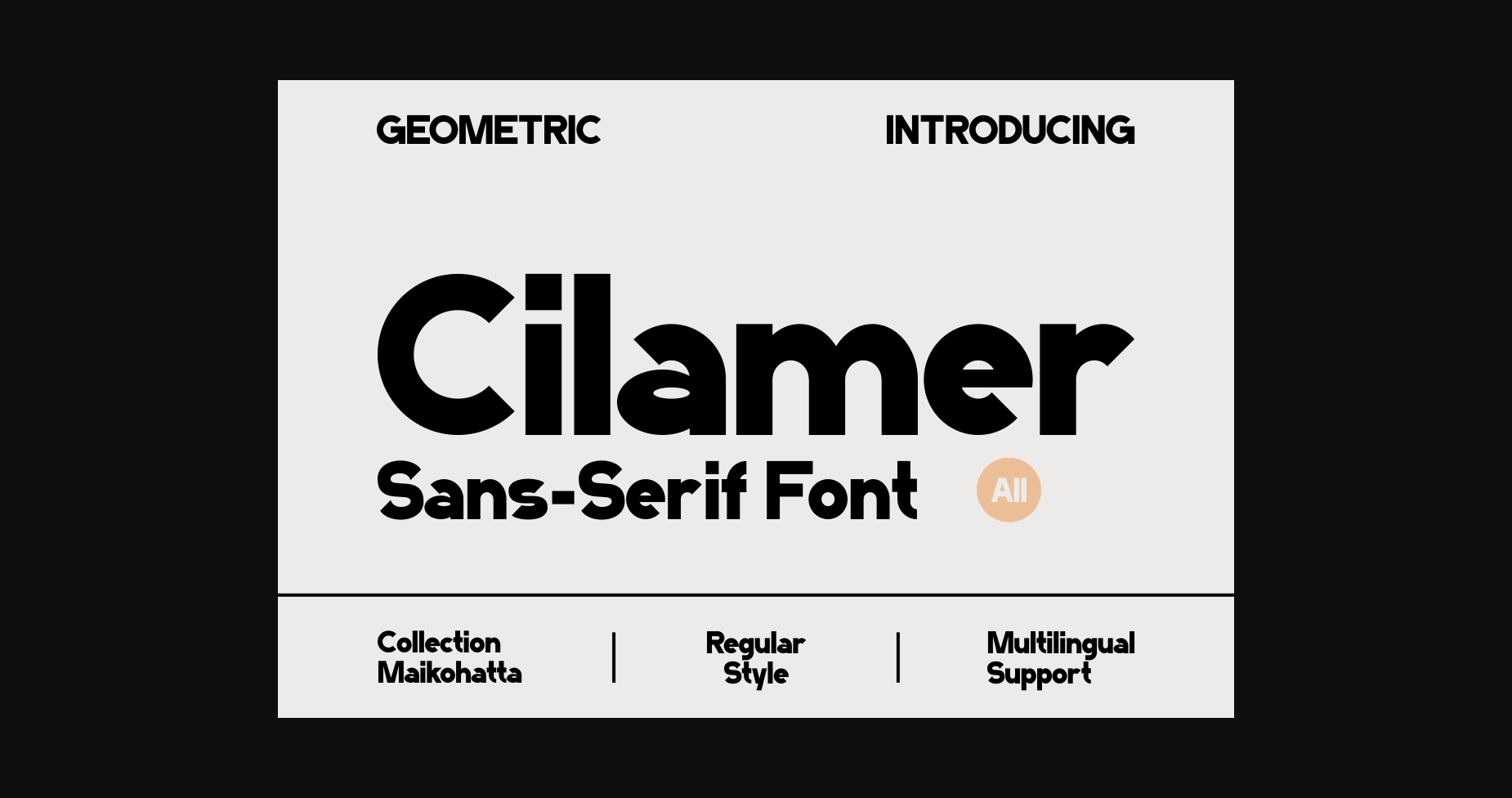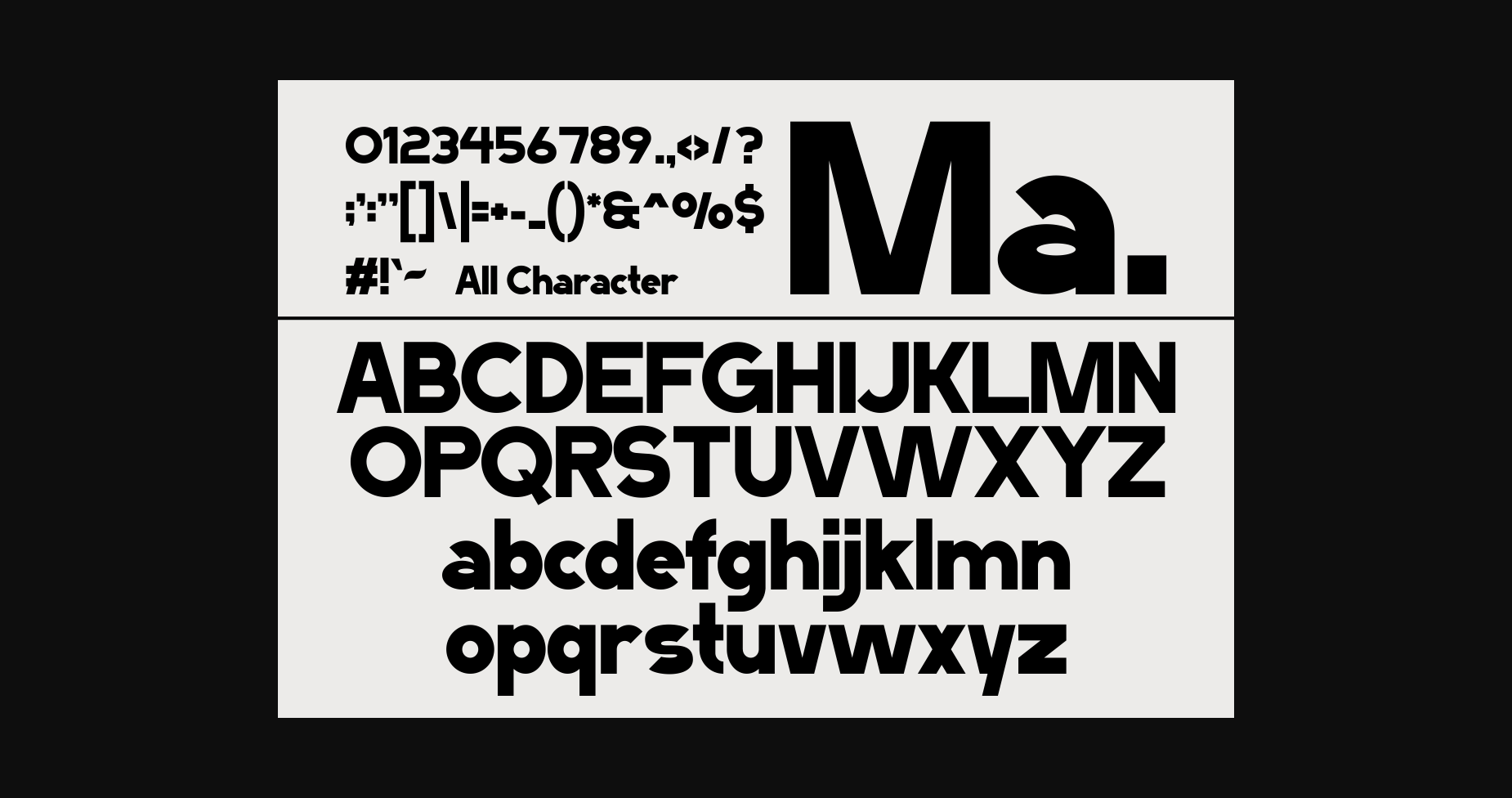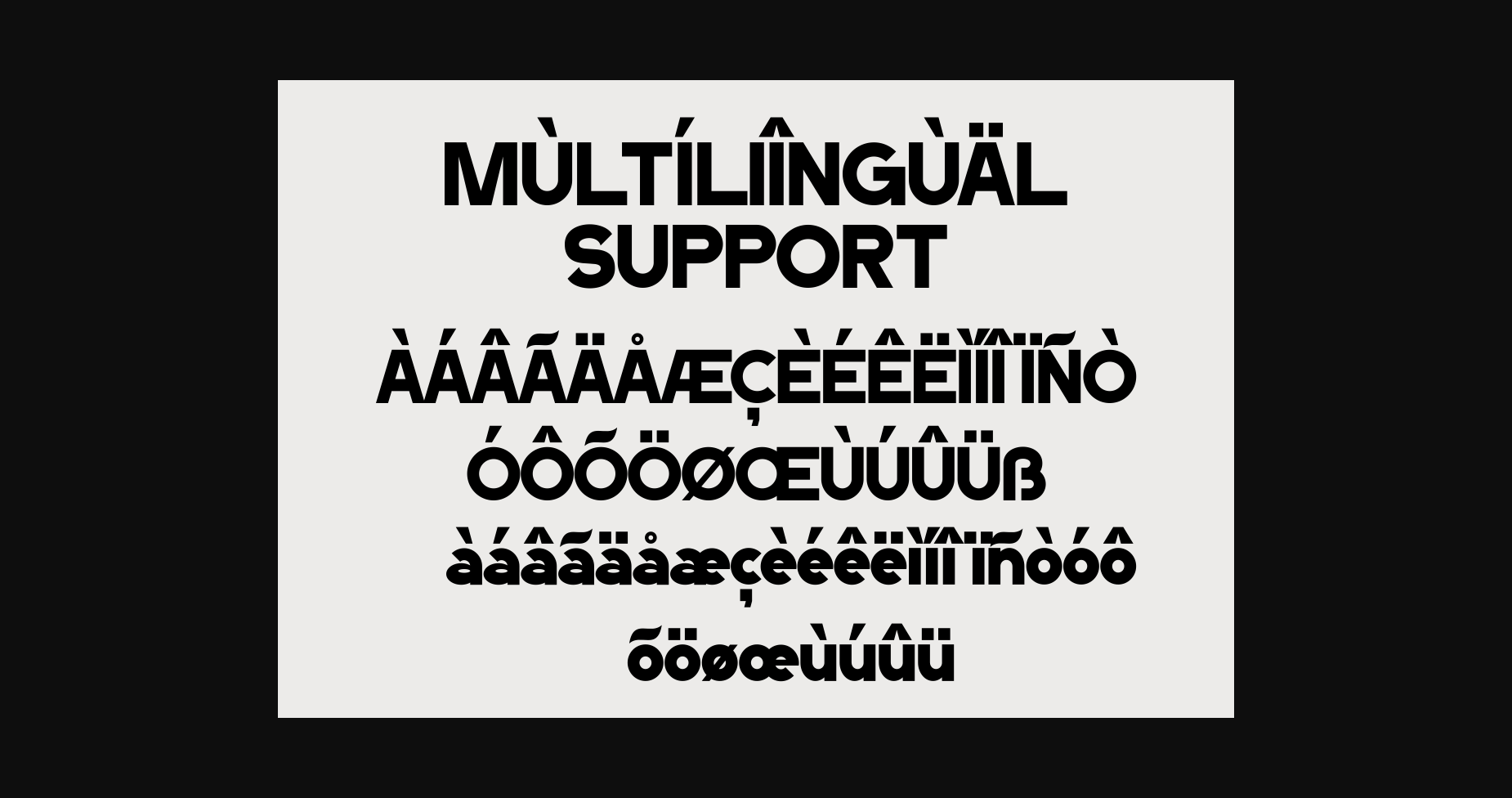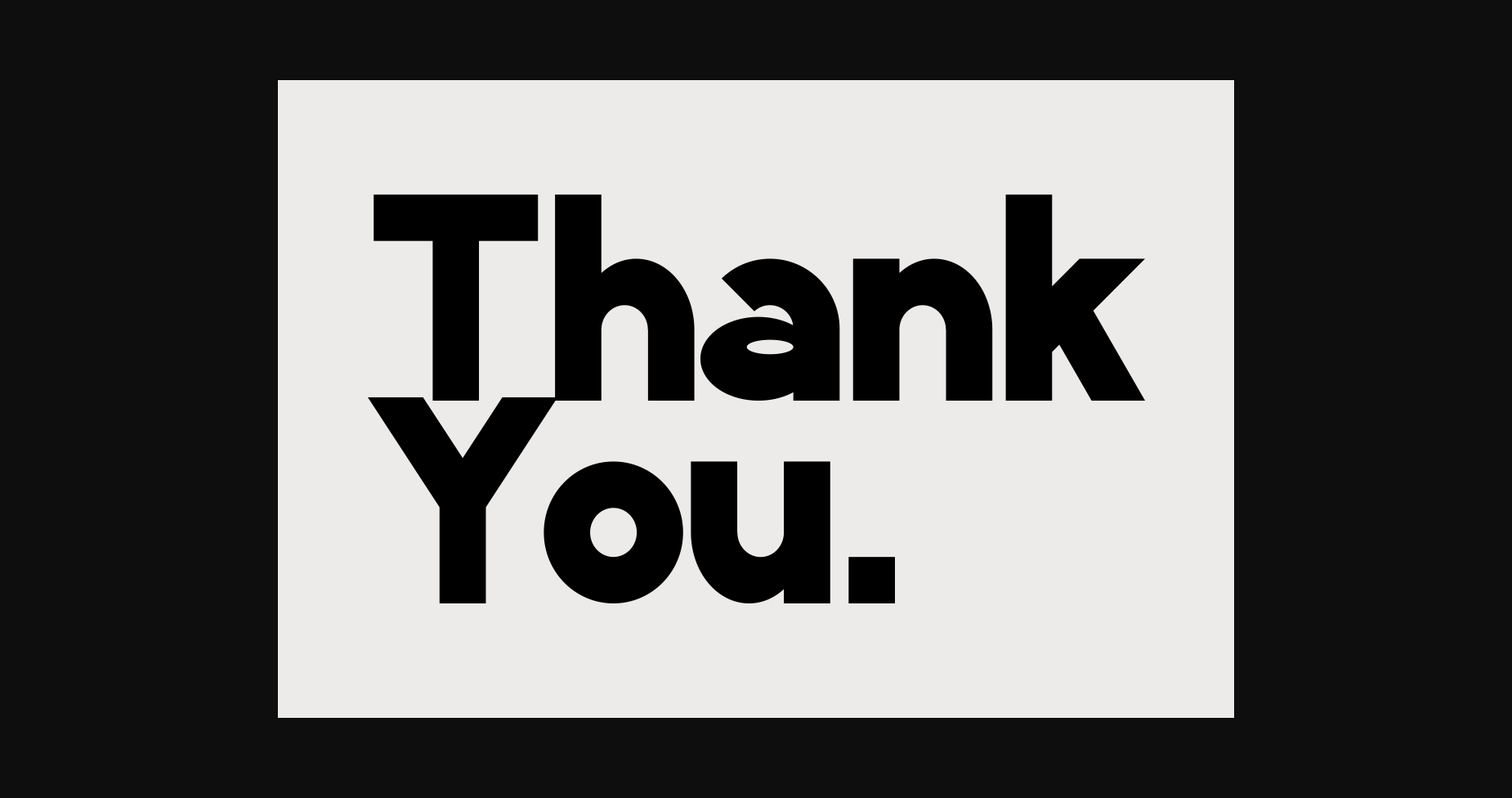
About Cilamer Font
Cilamer is a cool and modern sans-serif font that combines simplicity with sophistication. Its clean and minimalistic design makes it perfect for a wide range of projects, from branding and logos to web design and headlines. With its balanced letterforms and versatile styling, Cilamer adds a touch of contemporary elegance to any typographic composition